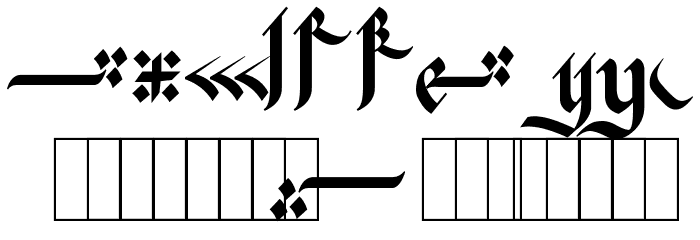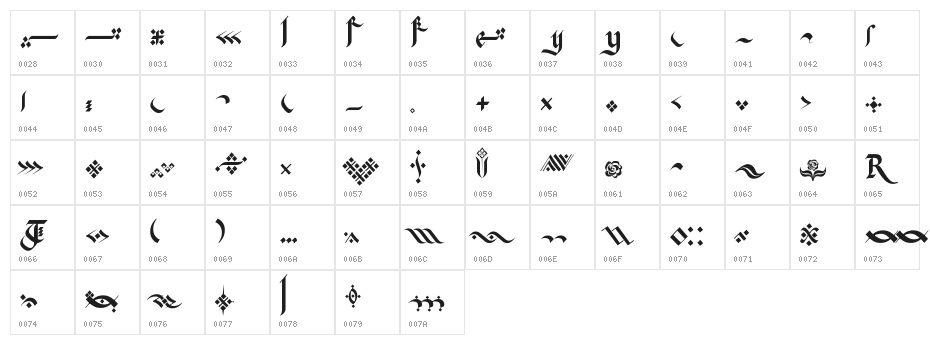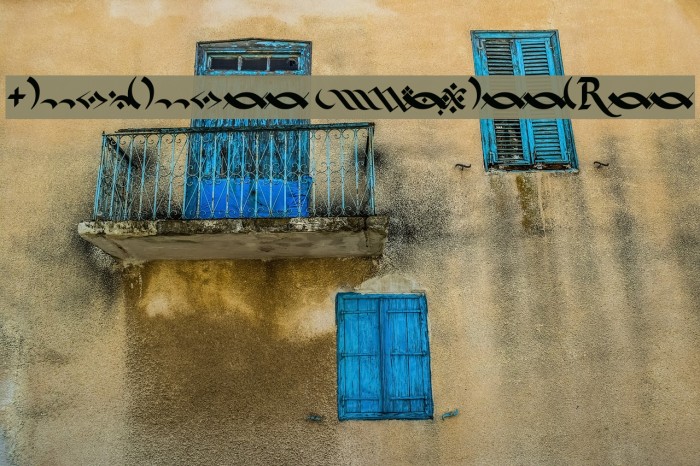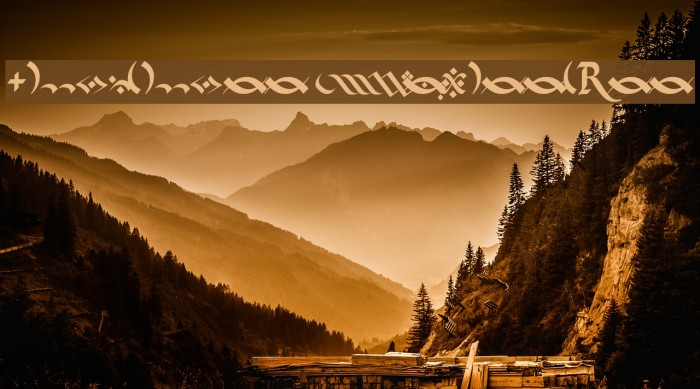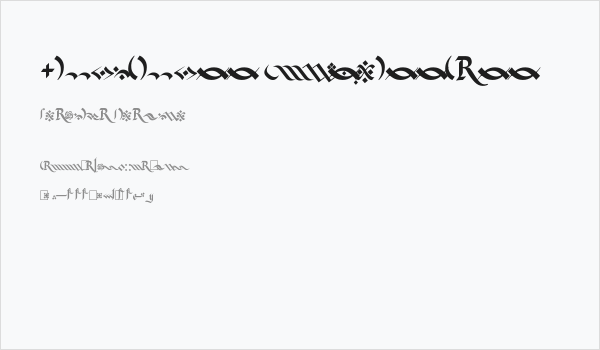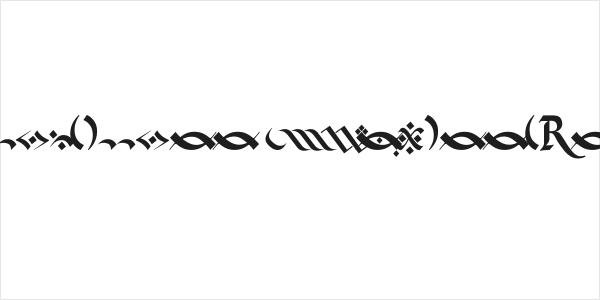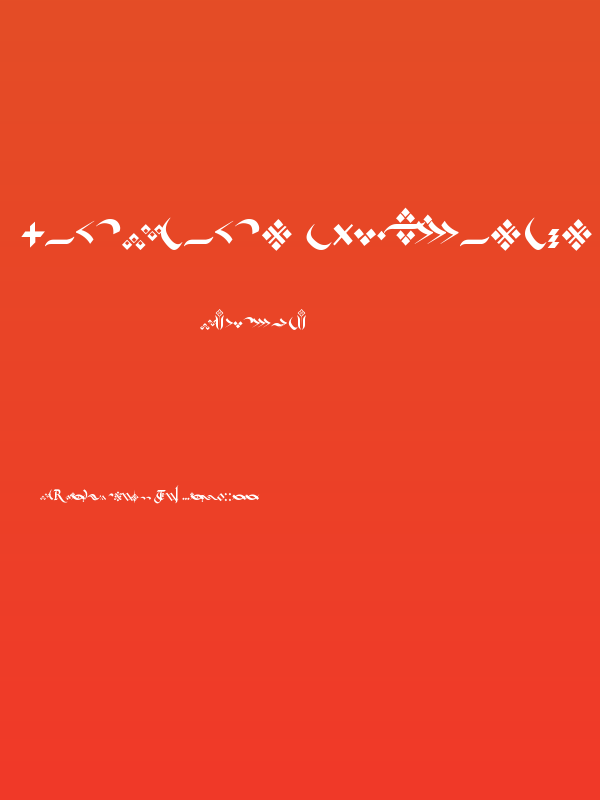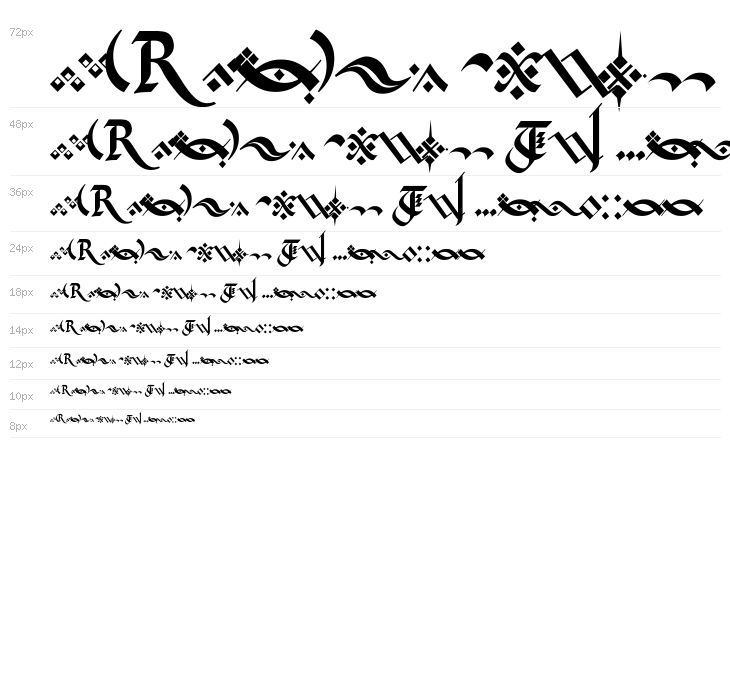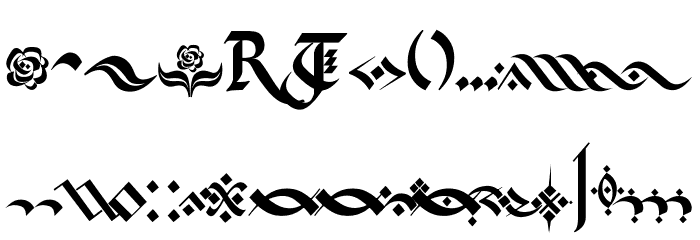
Kingthings Flourishes Font
Kingthings Flourishes Description
This font is a highly decorative and ornate typeface, characterized by its intricate flourishes and embellishments. It features a variety of swirls, curls, and geometric patterns that create a sense of elegance and sophistication. The design includes floral motifs and abstract shapes, offering a unique and artistic appearance. The characters are bold and striking, with a high level of detail that makes them stand out. This font is ideal for creative projects that require a touch of luxury and artistic flair.
| Use Case | Logos, Headlines, Decorative elements |
| Proposed Projects | Ideal for wedding invitations, luxury branding, artistic posters, and decorative book covers. |